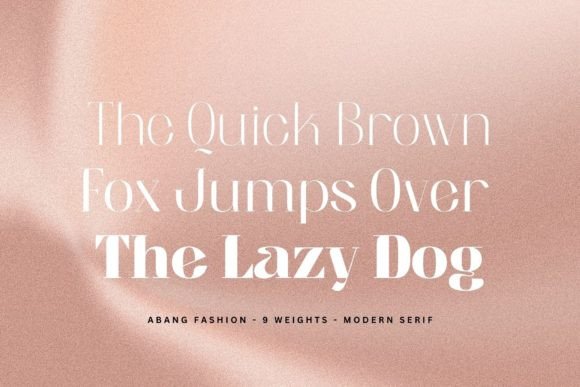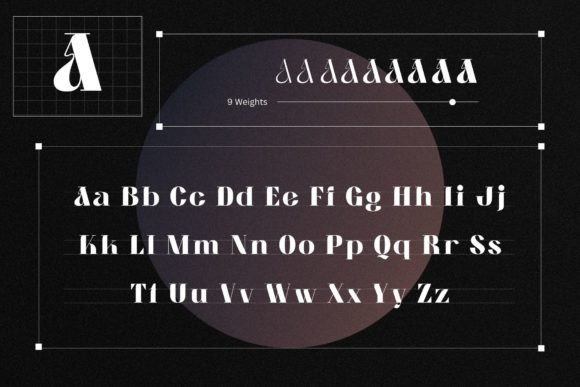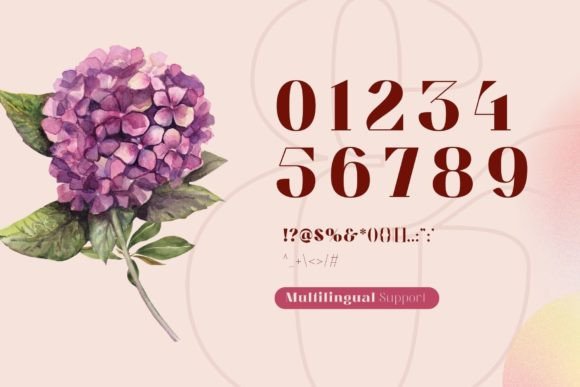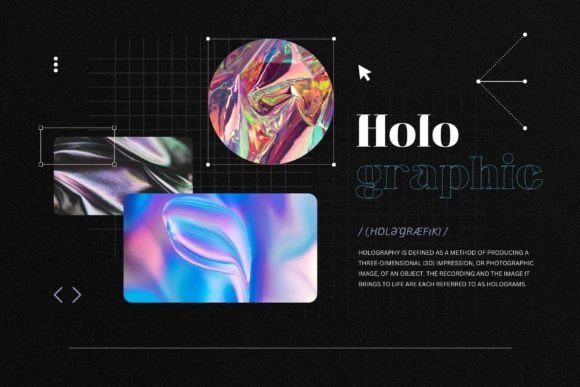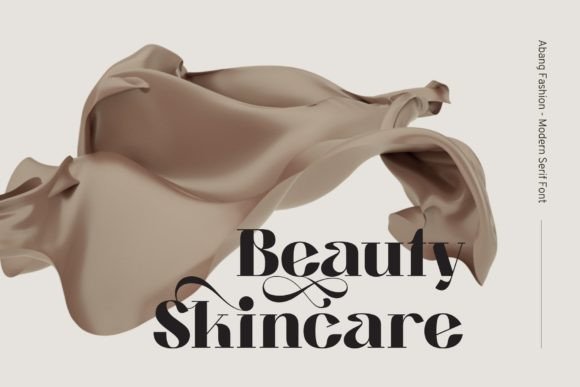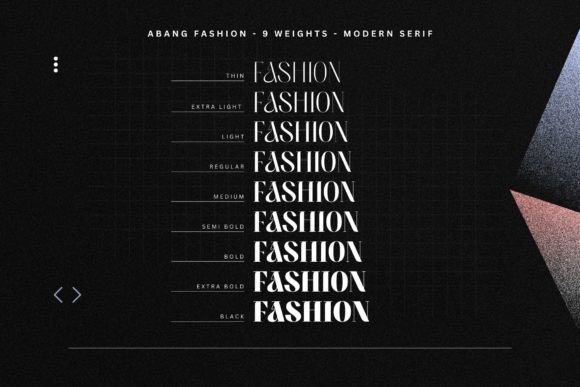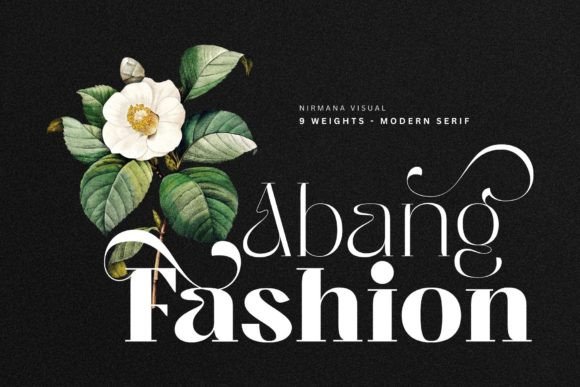
The Designer’s Delight: Abang Fashion Font
I’ll never forget the time I was working on a luxury branding project, and my client asked for a font that exuded elegance and sophistication. I scoured the internet, trying out font after font, but nothing seemed quite right. That was until I stumbled upon Abang Fashion Font. It was like a breath of fresh air – stylish, luxurious, and perfect for the project. In this article, I’ll share my experience with Abang Fashion Font, its features, and how to make the most of it in your design projects.
Abang Fashion Font: A Stylish and Luxurious Display Font
Abang Fashion Font is a stunning display font designed to bring a touch of luxury and glamour to your design projects. Whether you’re working on logos and branding, social media posts, advertisements, or product packaging, this font is sure to impress. With its beautiful typographic harmony, Abang Fashion Font offers a wide range of design possibilities.
What I Love About Abang Fashion Font
- ✨ PUA encoded: Abang Fashion Font is PUA encoded, which means you can access all the glyphs and ligatures with ease!
- ✅ Beautiful typographic harmony: This font offers a stunning typographic harmony that’s perfect for a variety of design projects.
- 💫 Luxurious and elegant: Abang Fashion Font exudes luxury and elegance, making it perfect for high-end branding and design projects.
While Abang Fashion Font is an amazing font, there are a few small quirks to be aware of:
- 🤔 Limited use cases: As a display font, Abang Fashion Font is best used for headlines, titles, and short text passages. It may not be suitable for body text or long-form content.
Abang Fashion Font was designed with inspiration from the world of luxury fashion. The font’s creator wanted to create a font that exuded elegance and sophistication, perfect for high-end branding and design projects. With its beautiful typographic harmony and luxurious feel, Abang Fashion Font is sure to become a favorite among designers.
Q: What is Abang Fashion Font?
A: Abang Fashion Font is a stylish and luxurious display font designed for a variety of design projects, including logos and branding, social media posts, advertisements, or product packaging.